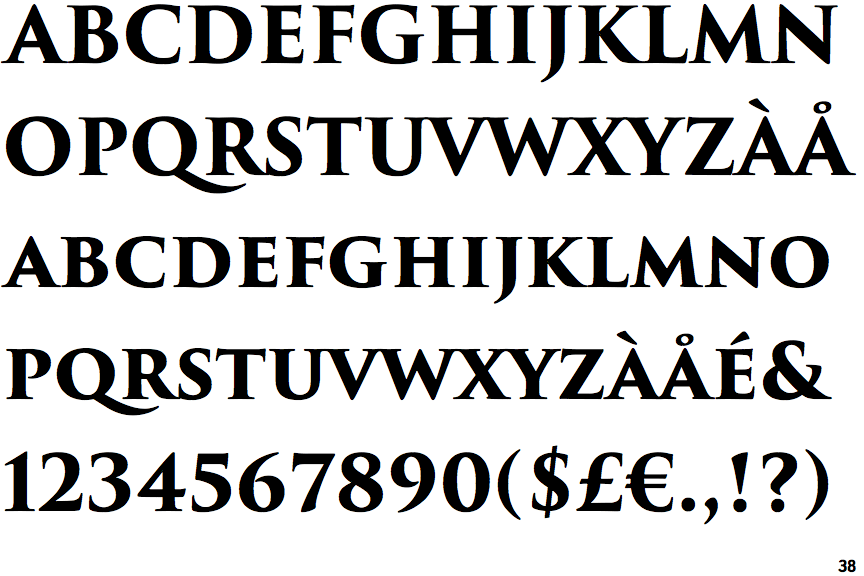
Free Fonts Trajan Pro. Moreover, it came into being in 1989. This typeface is compatible with all european languages.
You can use the trajan pro to create interesting designs, covers, shop and store name and logos. Trajan pro was the initial opentype release of the font, which included small caps in the lowercase slots, and in 2012 the font was revisited by adobe’s principal type designer, robert slimbach, who added four additional weights to the trajan font family, in addition to the existing trajan pro regular and trajan pro bold font, releasing the. Explore trajan designed by carol twombly, robert slimbach at adobe fonts.
This Serif Font Includes Six Weights Are Regular, Extra Light, Light, Semibold, Bold, Black.
Trajan Pro Font Belongs To The Serif Font Family.